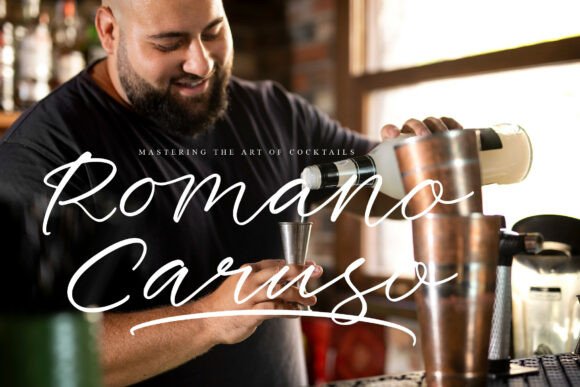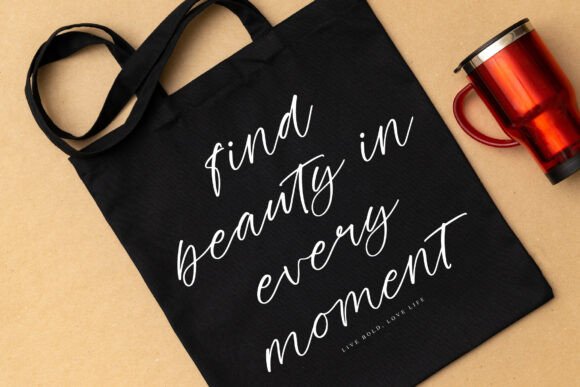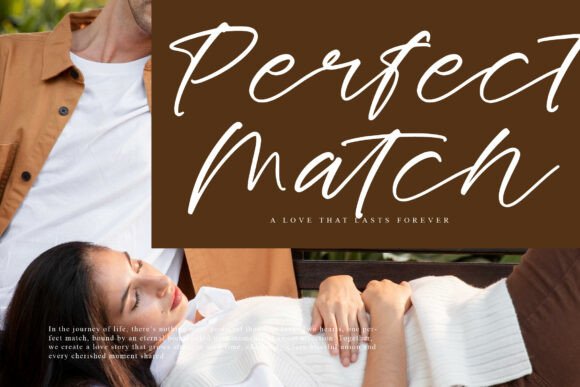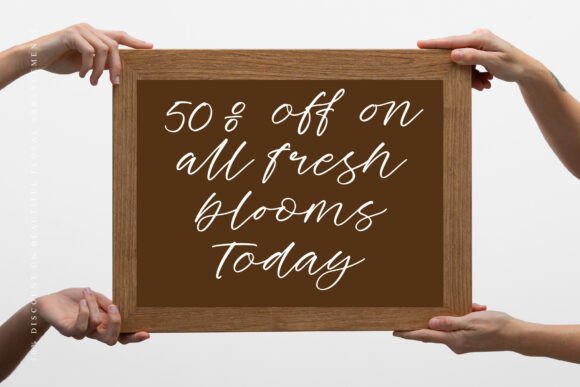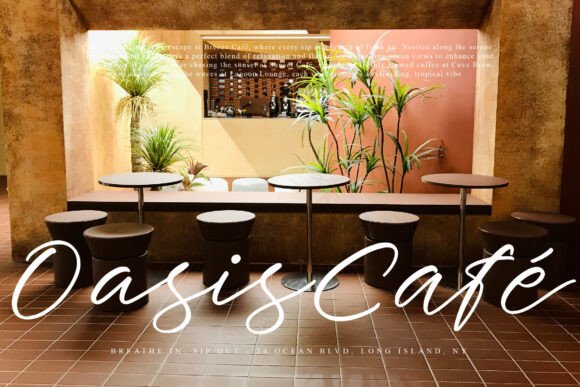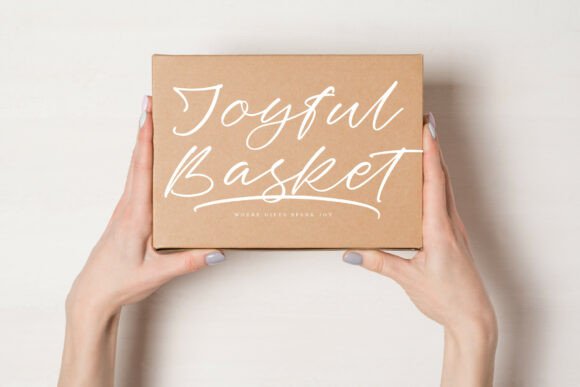
The Perfect Blend of Whimsy and Warmth: Unveiling the Betany Oasis Font
Do you remember the feeling of scribbling down handwritten notes in your favorite notebook, the ink bleeding onto the page as you poured your heart onto the paper? For many designers, this moment sparks a sense of creativity and freedom, a chance to let their personality shine through in their work.
That’s exactly what the Betany Oasis Font is designed to evoke – a sense of warmth, personality, and handmade charm. With two style variations and an impressive 394 glyphs, this modern script font is perfect for adding a touch of whimsy to product packaging, cozy café menus, logos, and lifestyle content. Whether you’re looking to create a brand that feels approachable and inviting or simply want to add some visual interest to your designs, the Betany Oasis Font is a valuable addition to any designer’s toolkit.
Betany Oasis Font Key Features
- Font Family: Betany Oasis
- Unique Characteristics: Features a unique blend of modern and elegant design elements, with subtle flair and ornate details that add sophistication to any text-based design.
Betany Oasis Font Review
I recently had the chance to work with the Betany Oasis font, and I must say it’s a unique and interesting addition to my design arsenal. ✨ The elegant, handwritten feel of the font immediately caught my attention, and I appreciated how it added a touch of sophistication to my designs.
One of the things that works well with Betany Oasis is its versatility. ✨ I was able to use it effectively for a variety of projects, from formal invitations to more casual social media graphics. The font’s cursive script also makes it an excellent choice for handwritten-style typography.
- ⚠️ The font may be a bit too ornate for some designs, particularly those that require a more minimalist approach.
- ⚠️ I also found that the font’s letterforms can be a bit difficult to read in certain font sizes, particularly in smaller text.
Overall, I was impressed with the Betany Oasis font’s unique style and versatility. While it may have some limitations, I believe it’s a great choice for designers looking to add a touch of elegance and sophistication to their work.
Use Betany Oasis Font for titles, headings, and body text in projects that require a modern and elegant look.
Pair the font with a clean and minimalist design to create a visually appealing effect.
Use the font in combination with bold and italic styles to add emphasis to your text.
Experiment with different font sizes and colors to create a unique visual hierarchy.
Alternatives to Betany Oasis Font
The Great Vibes Font is a modern, elegant, and cursive script font. It’s perfect for use in invitations, wedding designs, and other creative projects where a touch of sophistication is needed.
Comparison: Great Vibes Font is more modern and elegant than Betany Oasis Font. It’s ideal for projects that require a more refined and luxurious feel.
The Carolyna Pro Font is a beautiful, high-end script font that’s perfect for use in luxury branding, invitations, and other high-end design projects.
Comparison: Carolyna Pro Font is more luxurious and high-end than Betany Oasis Font. It’s ideal for projects that require a sense of exclusivity and sophistication.
Are there any specific font pairing recommendations for the Betany Oasis Font?
For optimal results, we recommend pairing the Betany Oasis Font with clean sans-serif fonts, such as Open Sans or Lato, for body text. For headings, you can pair it with a bold serif font, like Merriweather or Georgia. Experiment with different combinations to find the perfect match for your design project.